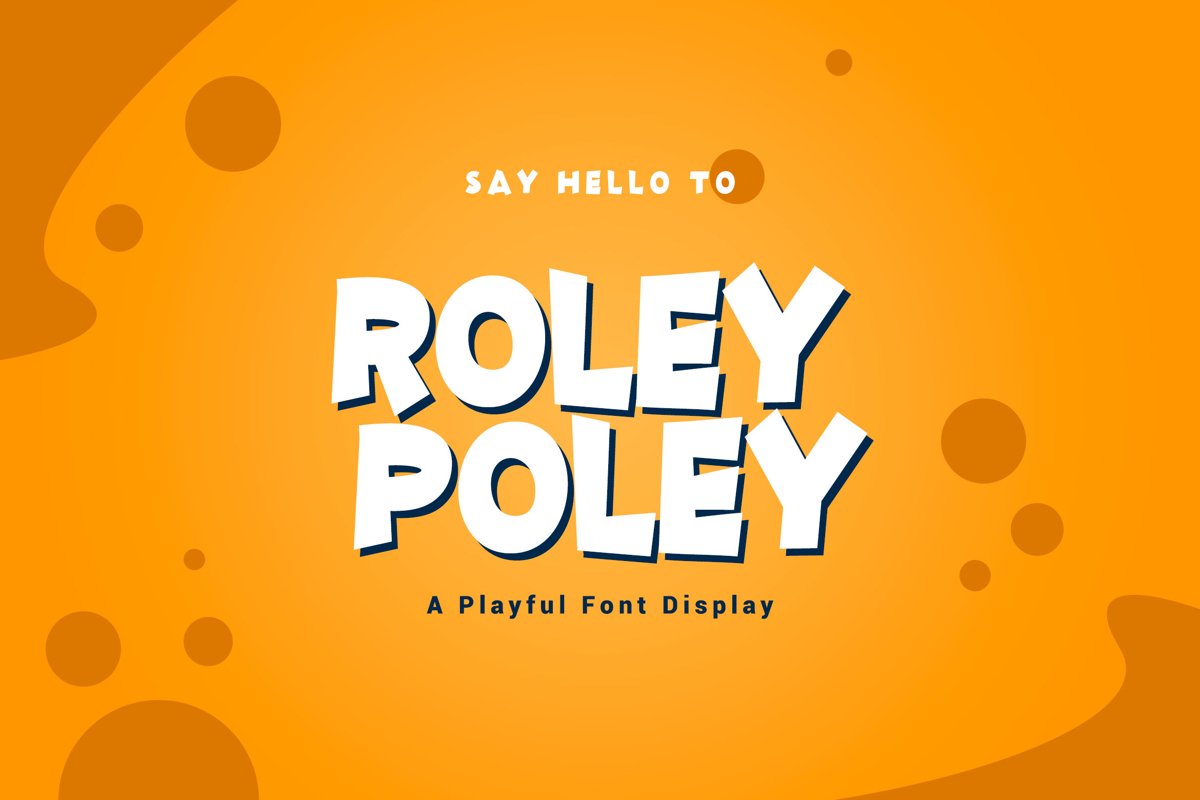
Roley Poley - Playful Font
Roley Poley
Hello! We are happy to introduce our new font "Roley Poley", is a bold display font, this font looks funny, cute, kids, cartoon, playful, catchy and easy to use.
This Font is the best choice for your professional design projects, including : logo, poster design, t-shirt, headline, flyer, cd cover album, quotes, business card, branding, magazines, social media, advertisements, product designs, or something that need playful or cartoon looks.
Highlights:
• Basic Latin A-Z and a-z
• Symbols